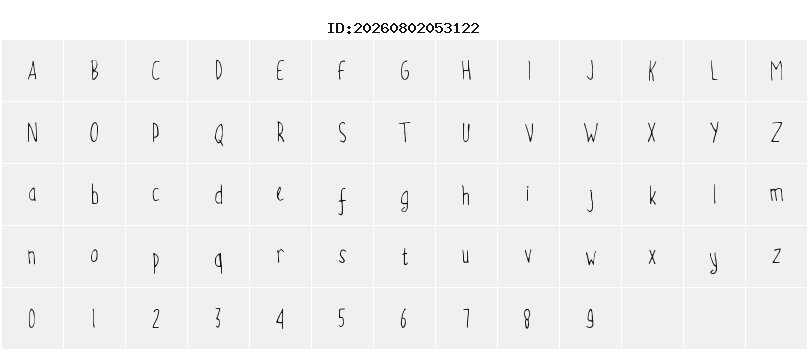
MNSUMMERBREEZE Preview
• Font Name: MNSUMMERBREEZE
About MNSUMMERBREEZE.ttf
MNSUMMERBREEZE.ttf is a modern, elegant sans-serif font designed for ultimate readability and visual harmony. Perfect for branding, headlines, web design, and print materials.